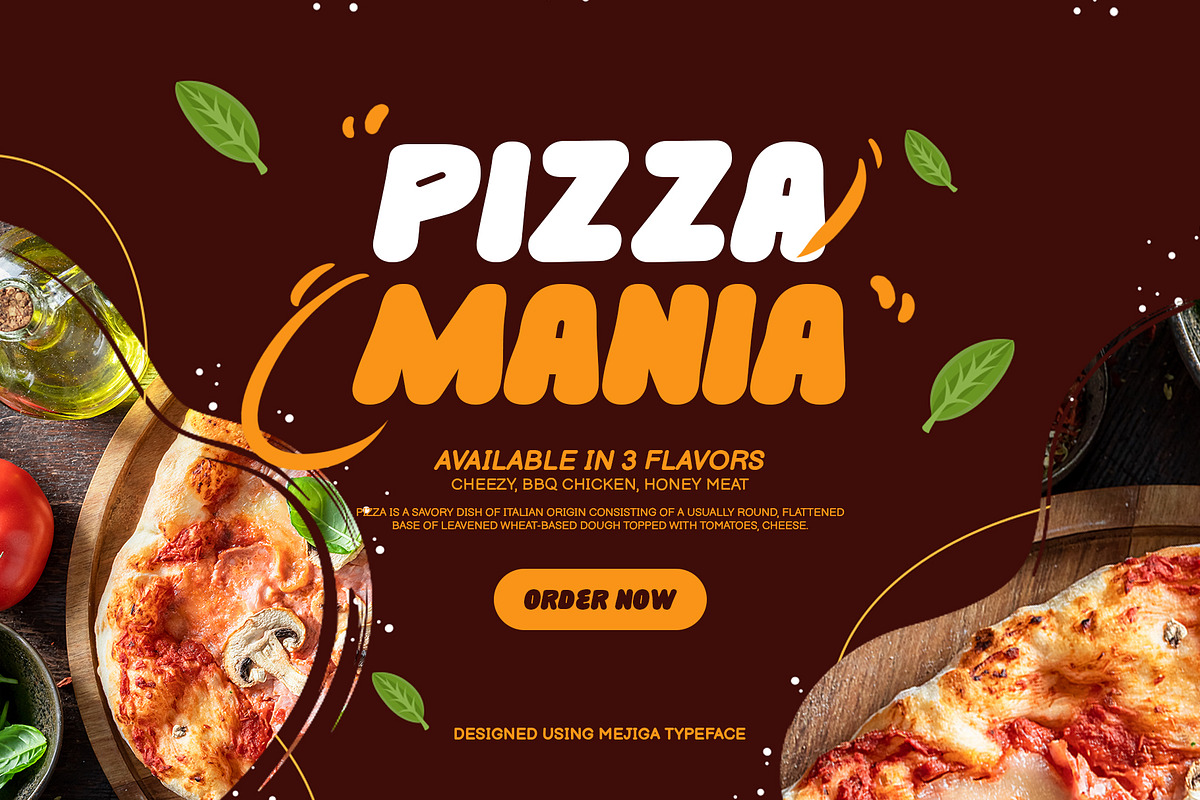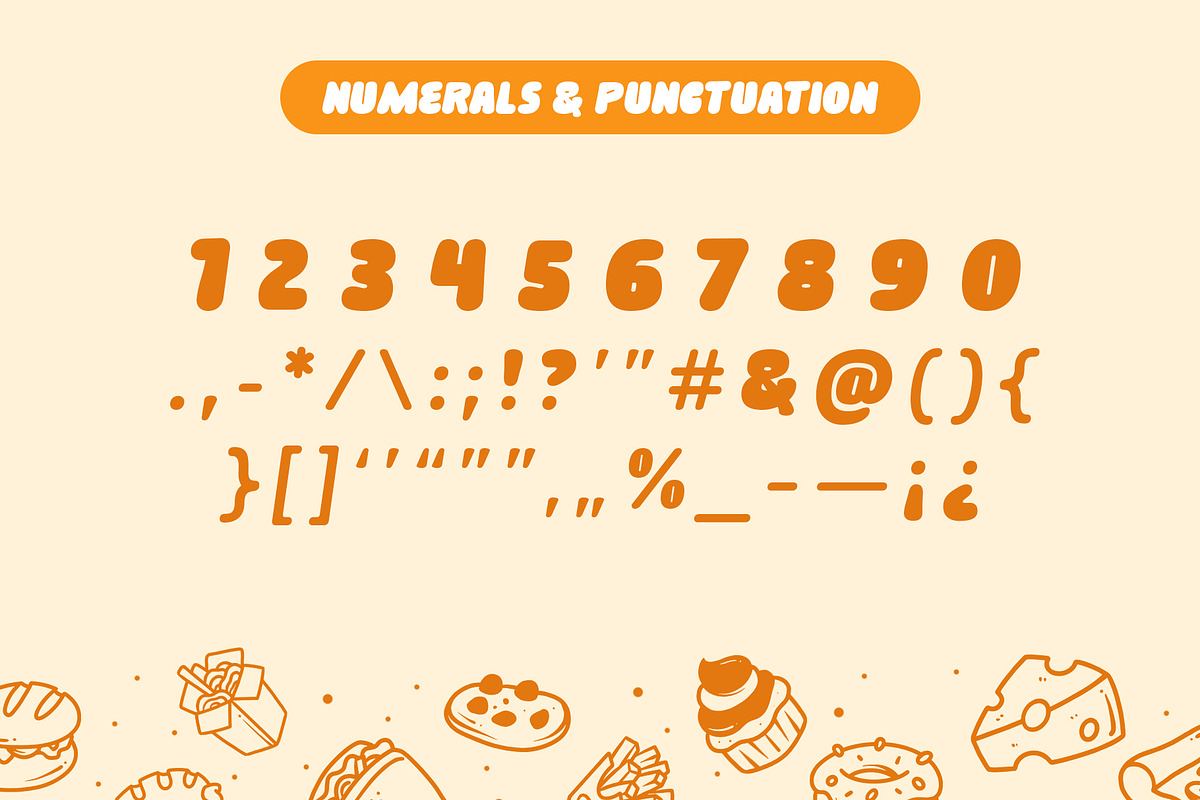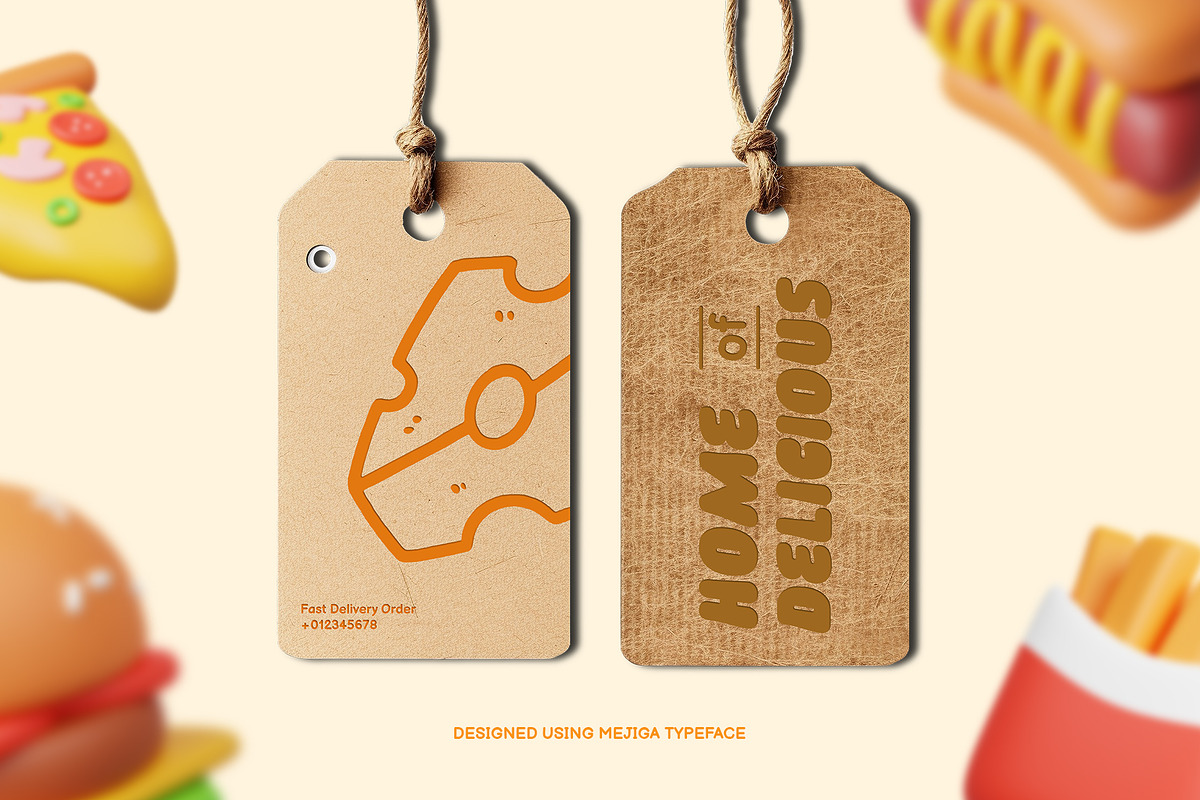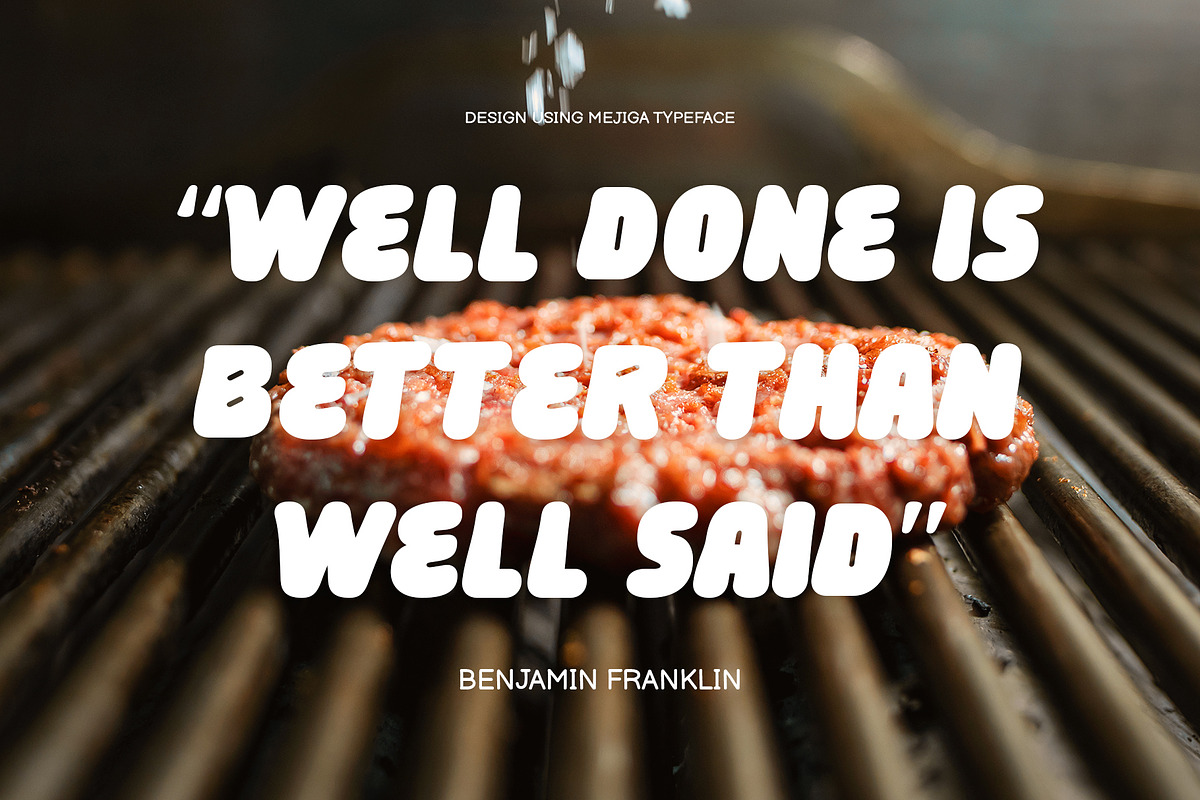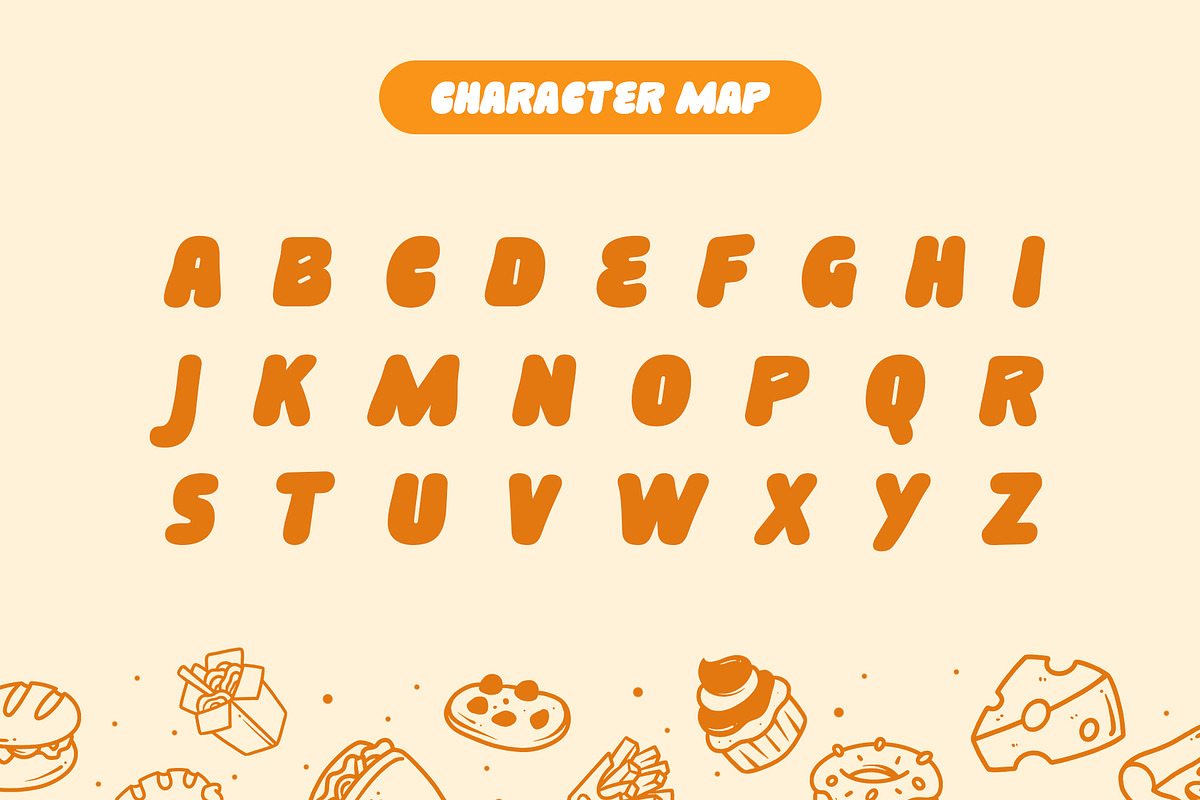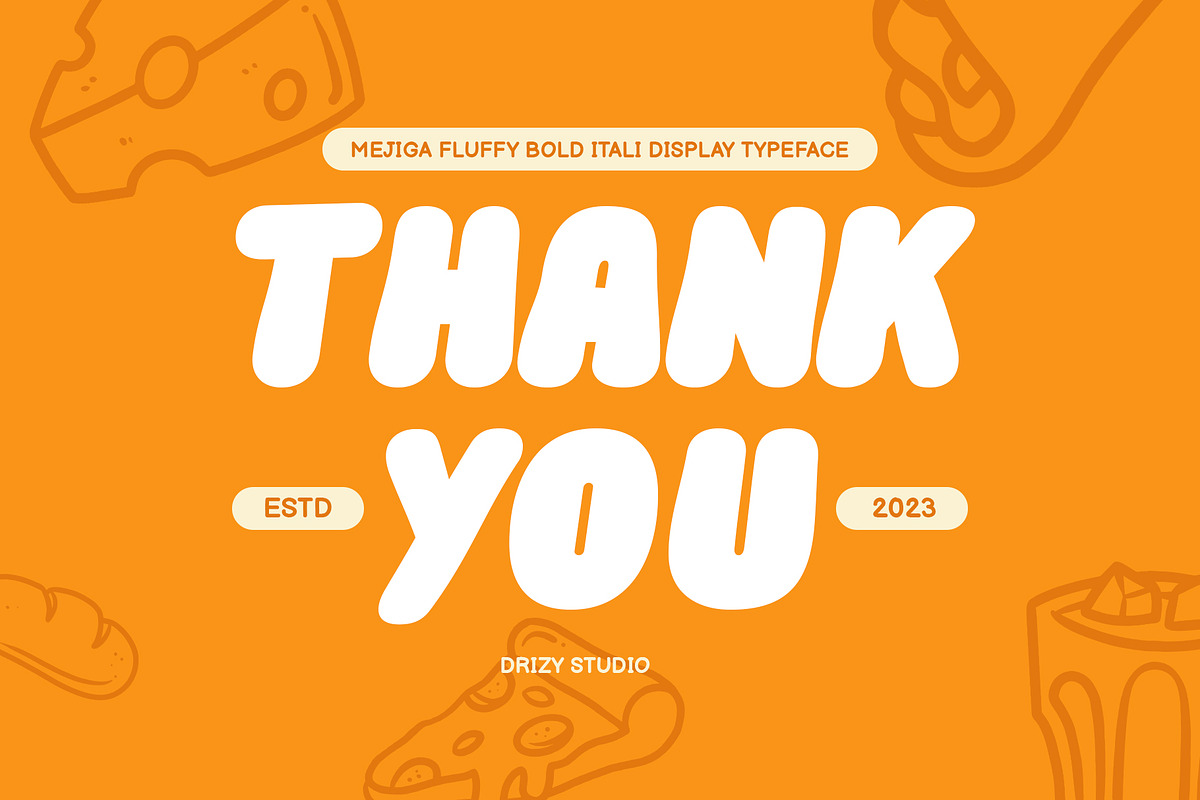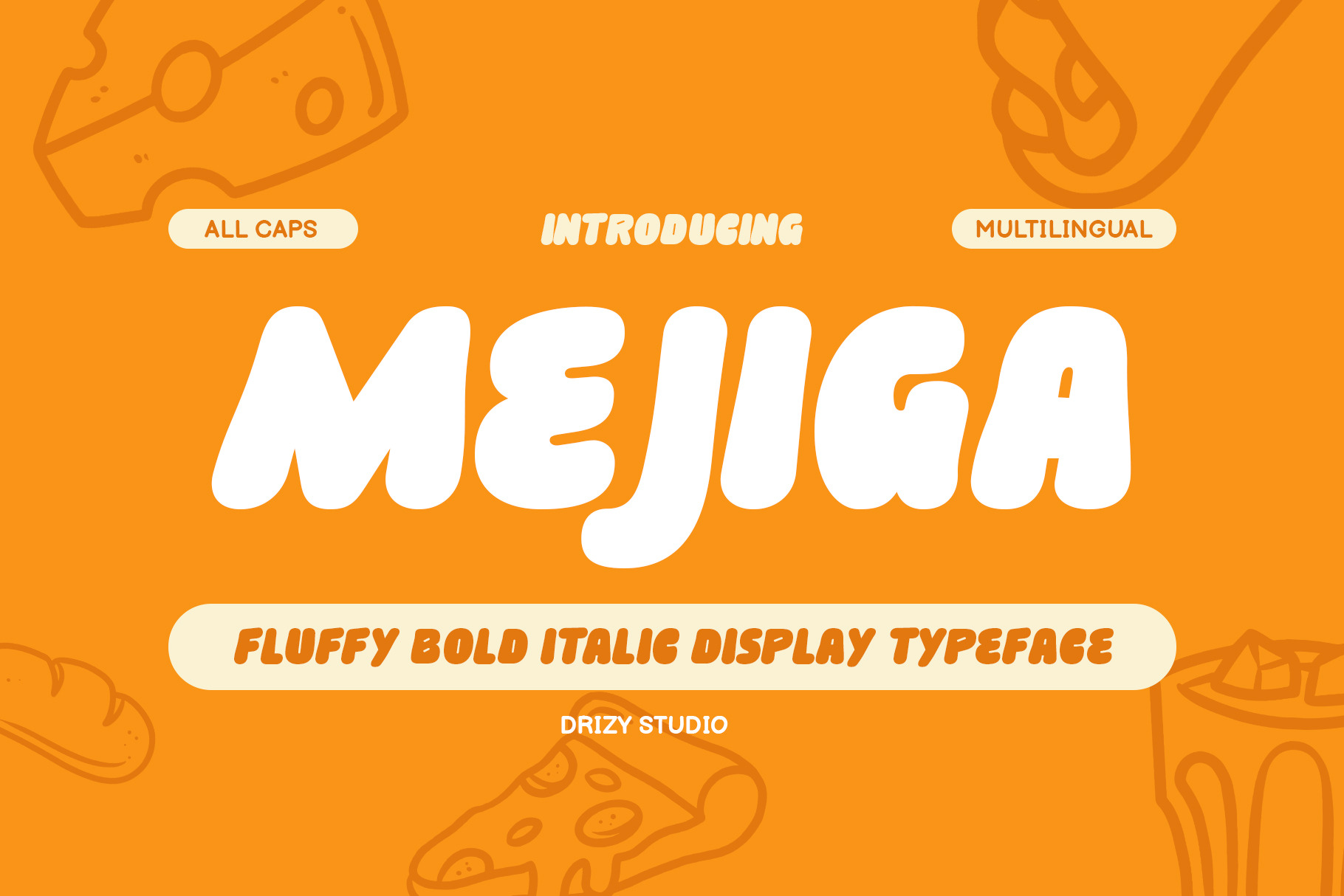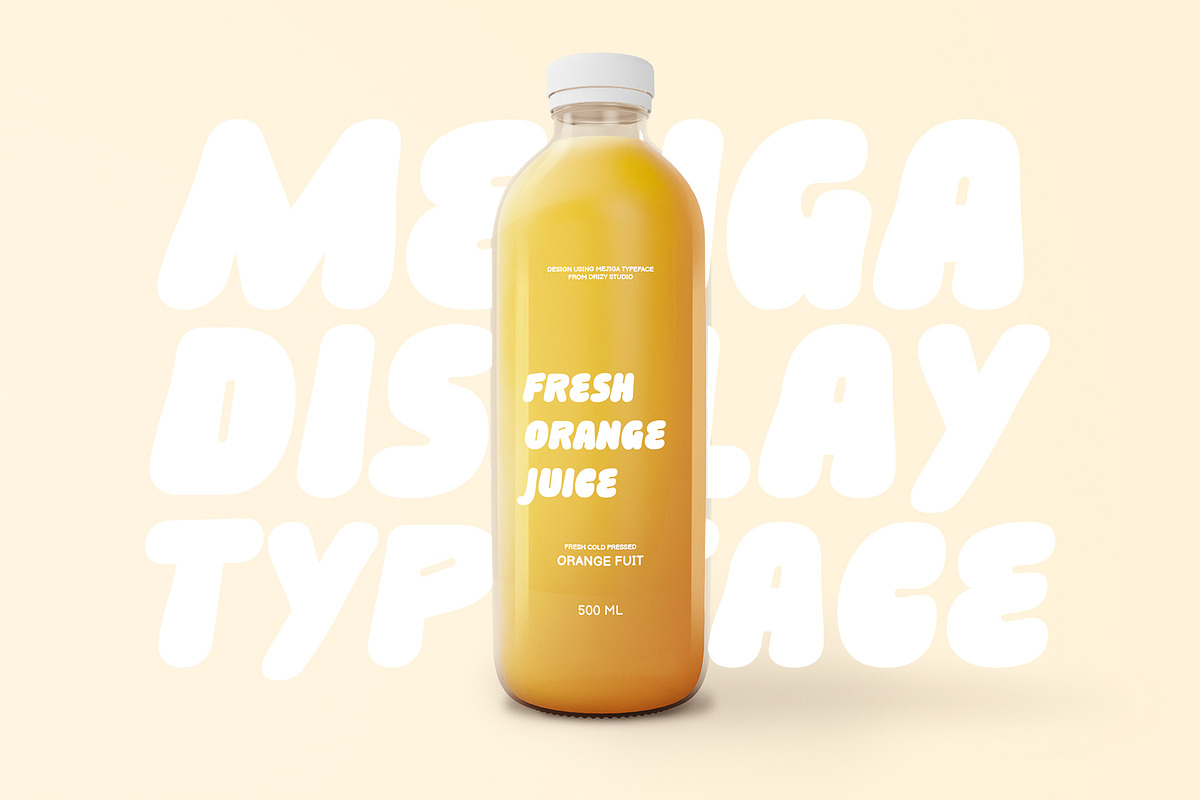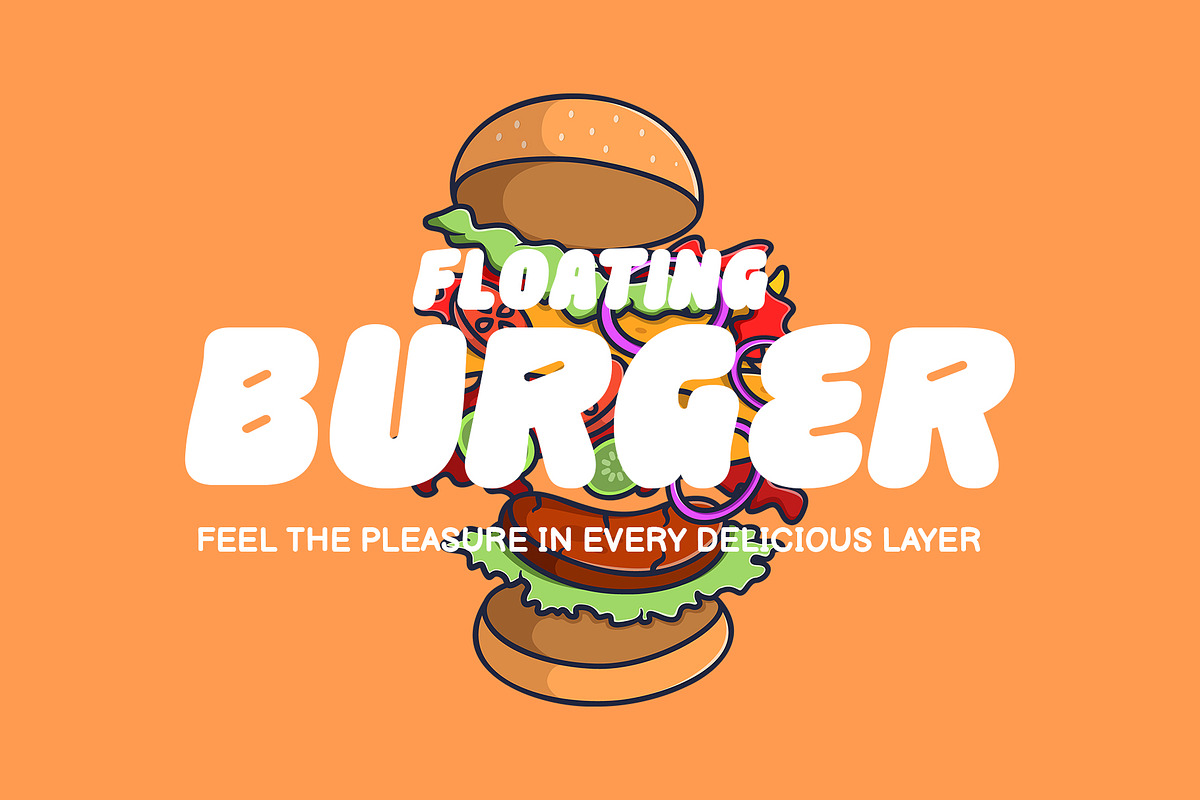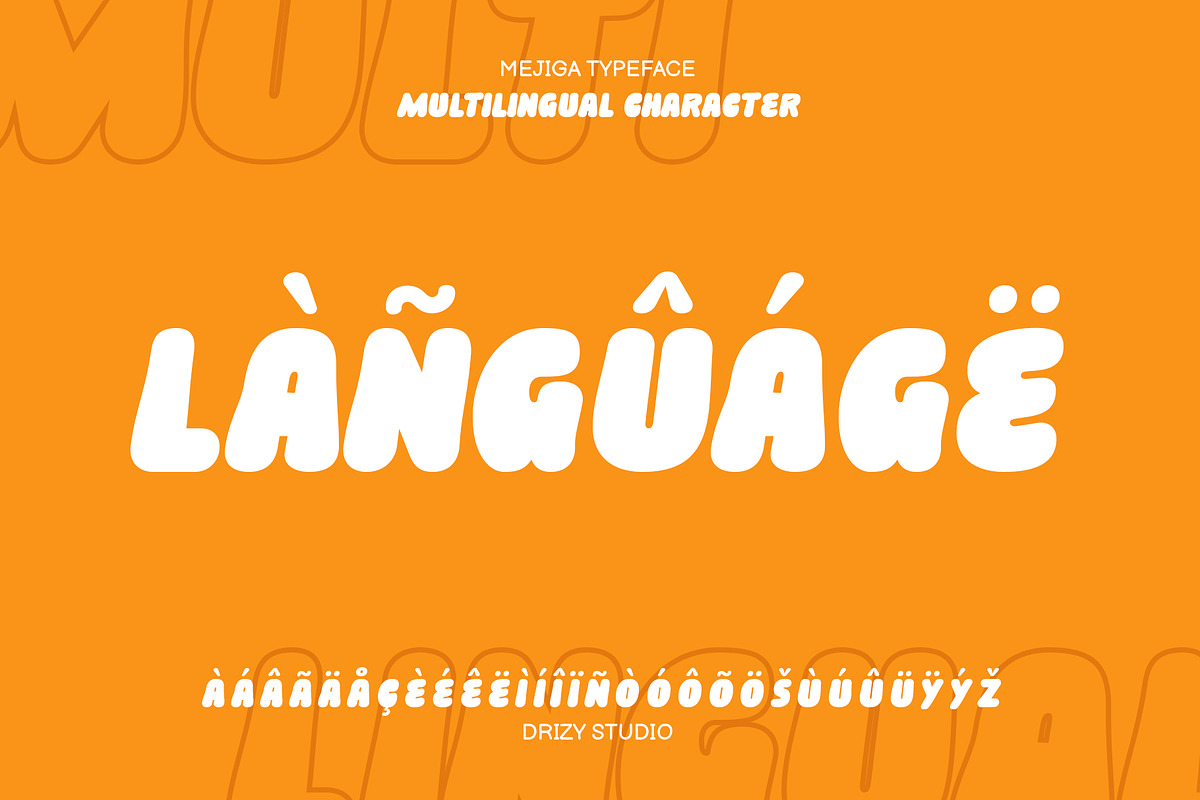
Mejiga - Fluffy Bold Font
Say hello to Mejiga - Fluffy Bold Font, your gateway to creativity! This eye-catching typeface is designed to add a touch of fun and playfulness to your projects. Its bold, fluffy letters exude charm and charisma, making it perfect for anything from children's books and posters to social media graphics and branding.
Let your designs come alive with the fluffy personality of Mejiga, fluffy font!